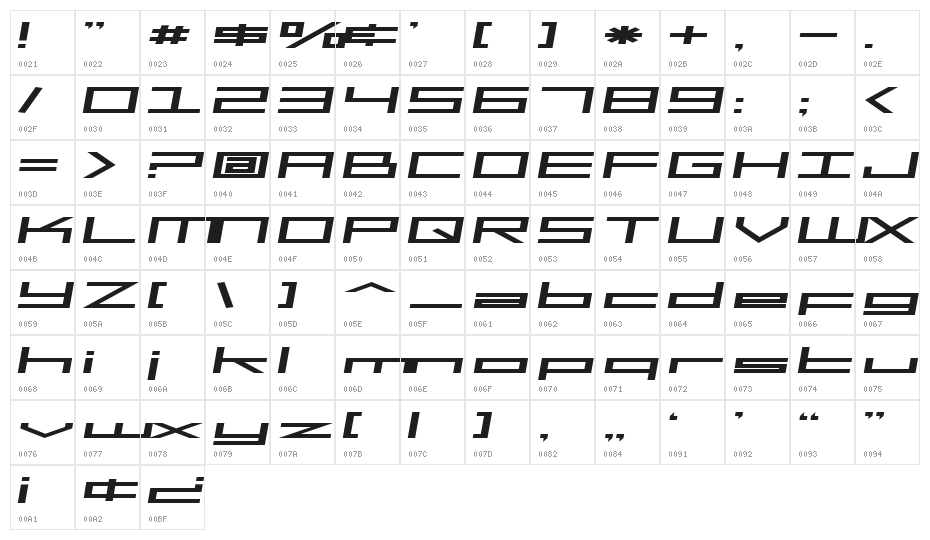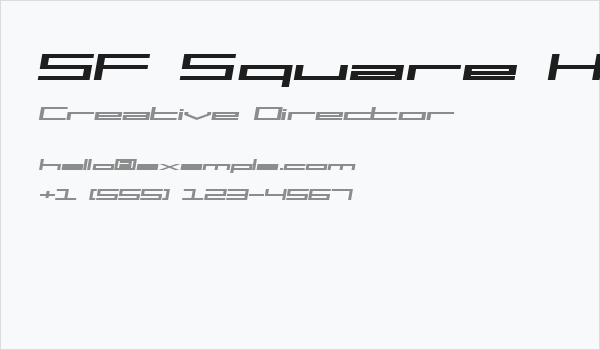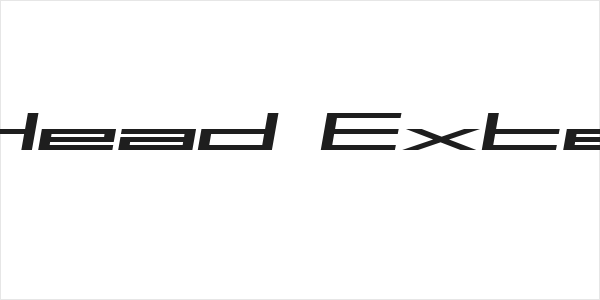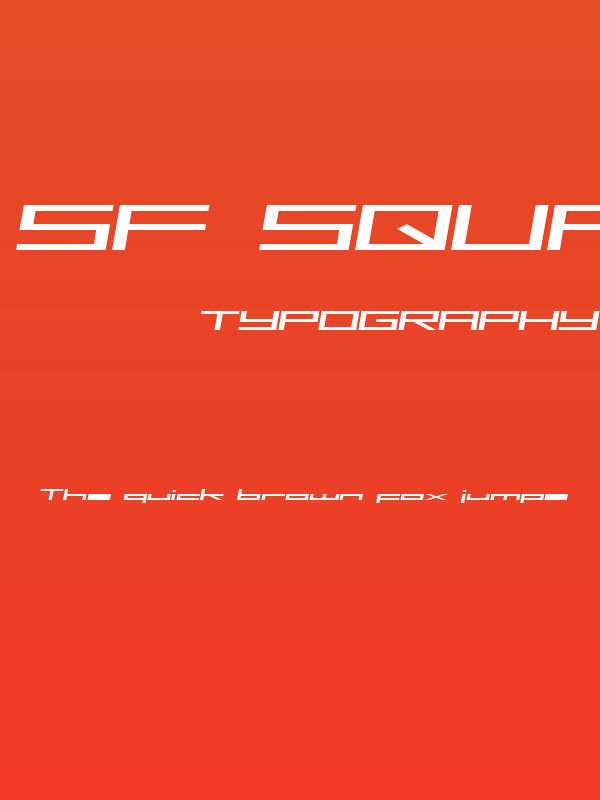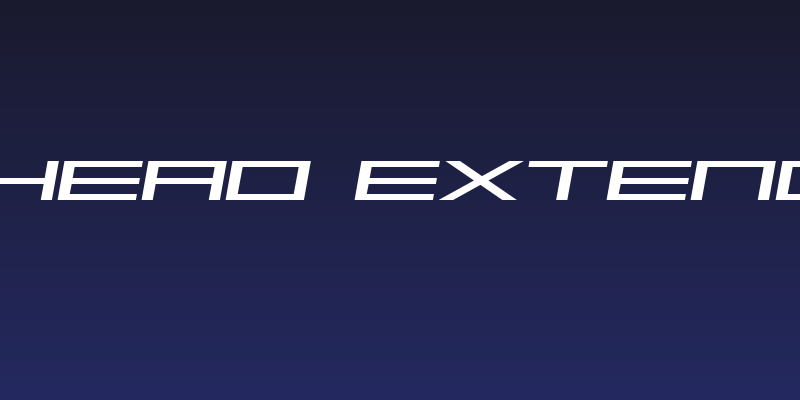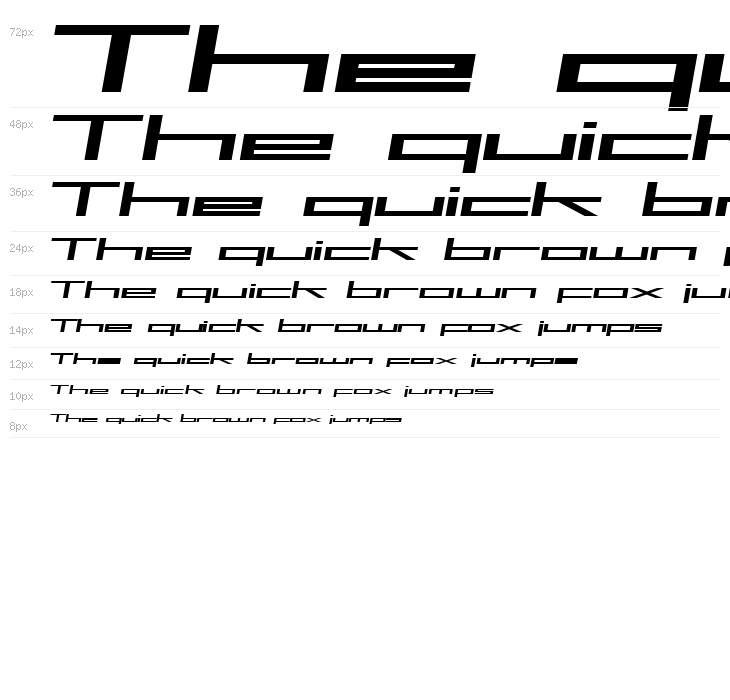
SF Square Head Extended Italic Font
SF Square Head Extended Italic Description
This font features a futuristic and geometric design with sharp angles and a sleek, extended form. The italic style adds a dynamic and forward-leaning appearance, enhancing its modern aesthetic. Each character is crafted with precision, maintaining a consistent stroke width that contributes to its uniform look. The uppercase and lowercase letters share a similar structure, ensuring readability while maintaining a distinct style. The numerals and special characters follow the same design principles, offering a cohesive visual experience. This font is ideal for projects that require a contemporary and tech-inspired feel.
Proposed ProjectsIdeal for technology branding, sci-fi posters, video game titles, and modern web design.